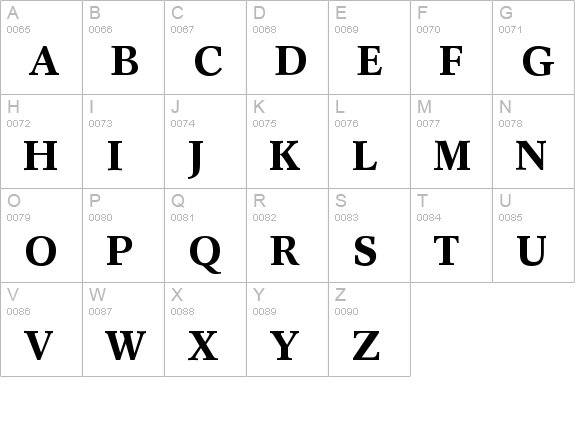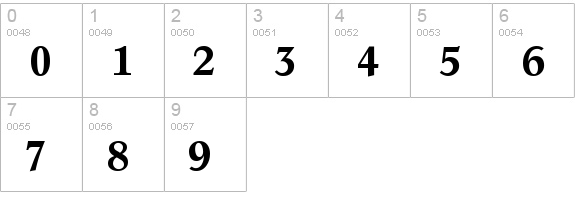
C790-Roman-Bold is a strong, high-contrast variant in the C790 typeface family \xE2\x80\x94 well suited to headlines, attention-grabbing titles, and strong calls-to-action.
The C790-Roman-Bold font exudes a sense of bold sophistication and strength, making it the perfect choice for headlines, titles, and other attention-grabbing text. Its clean lines and elegant design give it a timeless appeal that can elevate any design project. Whether you're creating a striking poster, eye-catching logo, or impactful branding materials, this font will help you make a bold statement. What's even better is that the C790-Roman-Bold font is available for free download at FontsMarket.com. This means you can easily access this versatile and stylish font to enhance your creative projects without any cost. Don't miss out on the opportunity to add this exceptional font to your design arsenal and bring your ideas to life with its powerful presence.